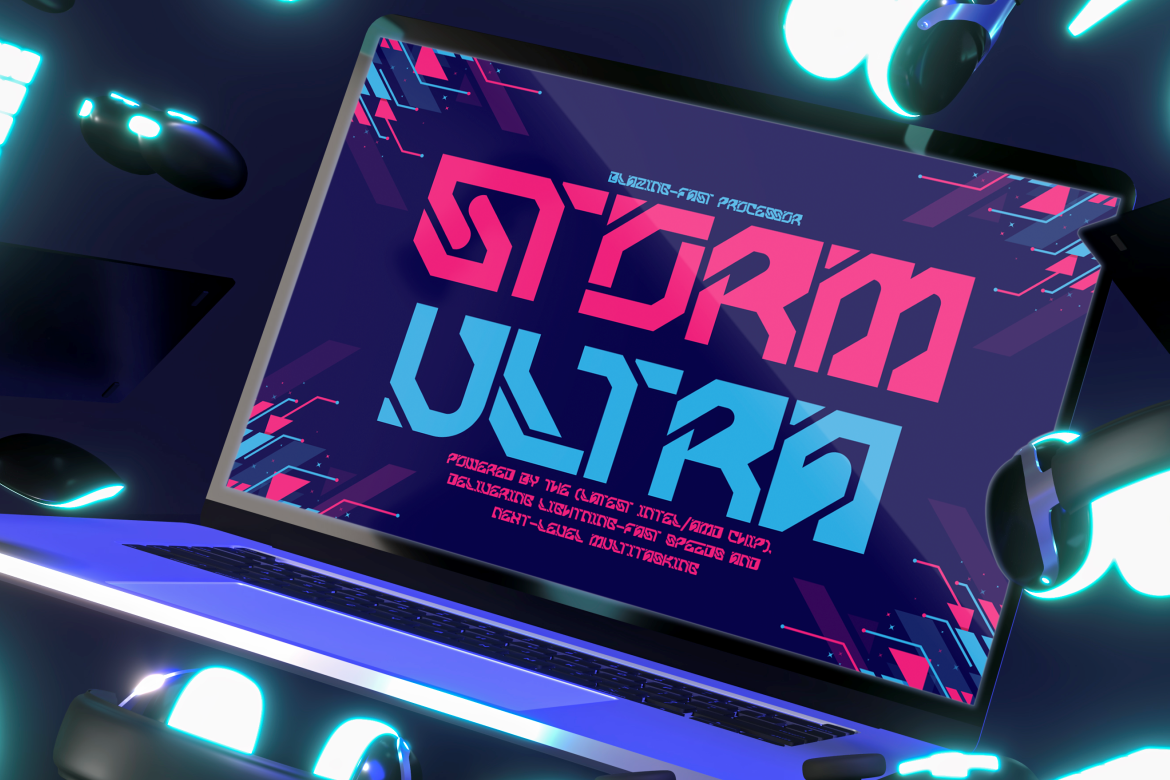
Typography plays an essential role in the gaming industry, whether for creating immersive visuals in-game or for promoting gaming products and content. The best fonts for gaming are often designed with bold, futuristic, and dynamic styles that grab attention and reflect the energetic, high-tech nature of the gaming world. Whether you’re designing game covers, advertisements, websites, or promotional materials, the right font can enhance the overall visual impact and help convey the game’s theme, mood, or genre. From cyberpunk aesthetics to retro pixel designs, the gaming font landscape offers a wide variety of styles that make a statement. This article reviews some of the best fonts for gaming, focusing on those that work for both promotional use and other creative content in the gaming industry.
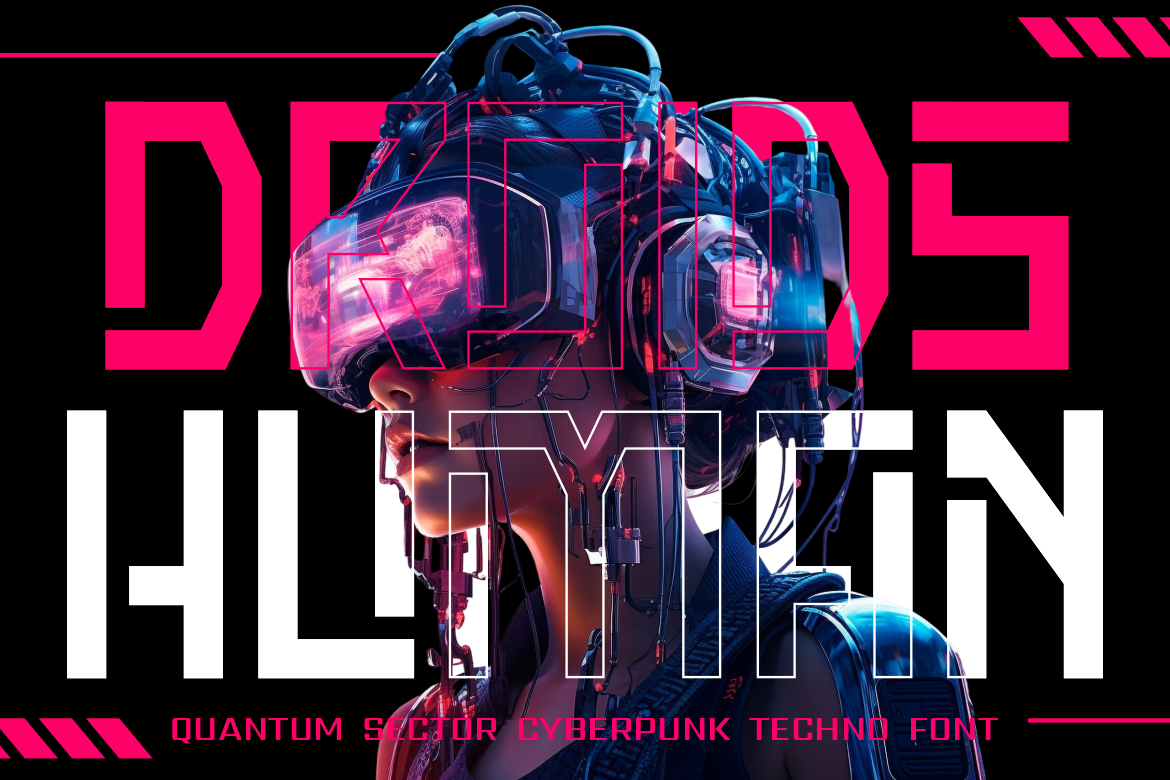
One standout font is Quantum Sector, which brings a cyberpunk and techno style to the table. Perfect for sci-fi, futuristic, or action-packed designs, Quantum Sector adds a bold, sleek look to any project. Its angular, cutting-edge design makes it ideal for tech-heavy content or video game promotions. The futuristic appeal suits a wide variety of applications, including gaming ads or game posters, while its high-tech aesthetic helps create a striking atmosphere. However, due to its complexity, it may not always work well in more minimalist or elegant designs. This font works best when you want to evoke modernity and energy but may not be suitable for projects requiring simplicity or readability.
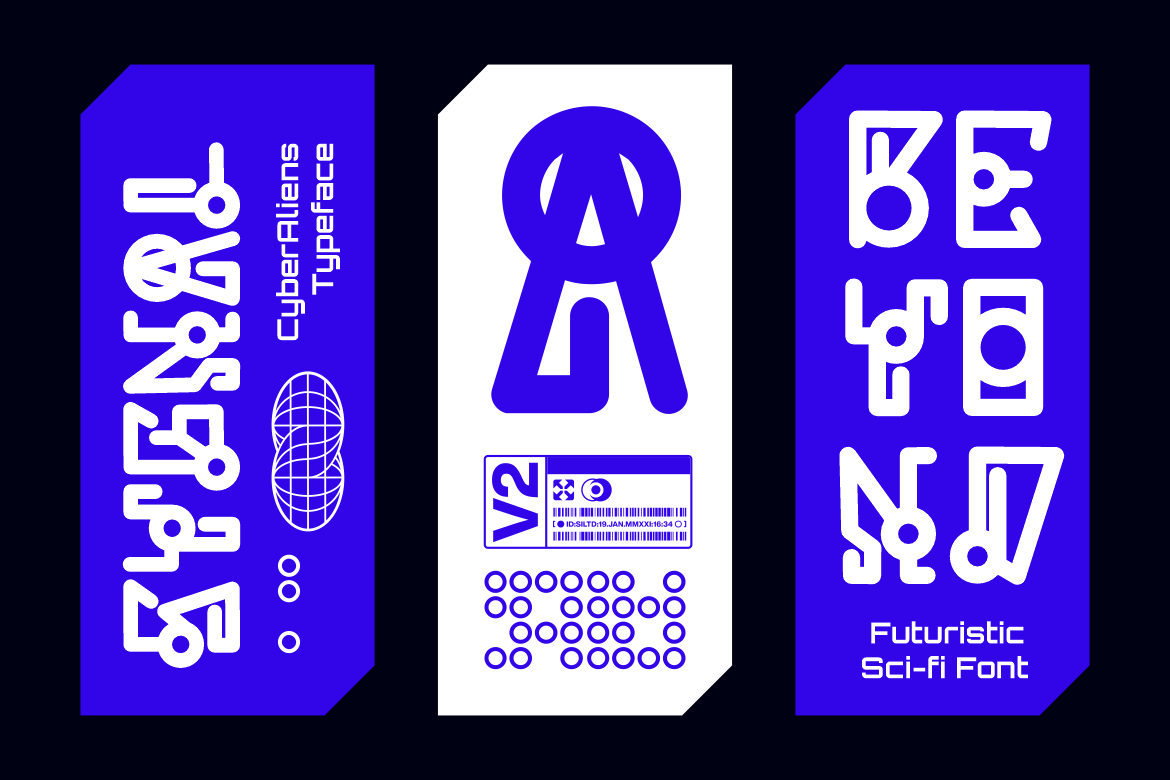
Similarly, Cyber Aliens offers a futuristic sci-fi feel, incorporating alien motifs and intricate designs. The bold, geometric shapes give it an otherworldly charm, making it a great choice for game posters, sci-fi content, and advertisements for futuristic-themed games. The font is especially suited for sci-fi and gaming promotions that demand attention and a sense of mystery. However, its complexity could make it difficult to read in smaller text sizes, limiting its utility for body copy or smaller font applications. For larger, more impactful designs, though, it excels in drawing attention.
Another excellent option is Nexaro Module, a font designed for futuristic and sci-fi content. Its sharp lines and digital aesthetic make it perfect for games set in high-tech or virtual worlds. This font can be used to give game titles, headers, or promotional graphics a sleek, modern touch. The font’s clean and geometric style also makes it versatile enough for web design and branding in the gaming industry. However, like other futuristic fonts, it may not work well in more traditional, retro, or vintage designs. Despite this, its adaptability to modern and futuristic projects makes it a popular choice in the gaming community.
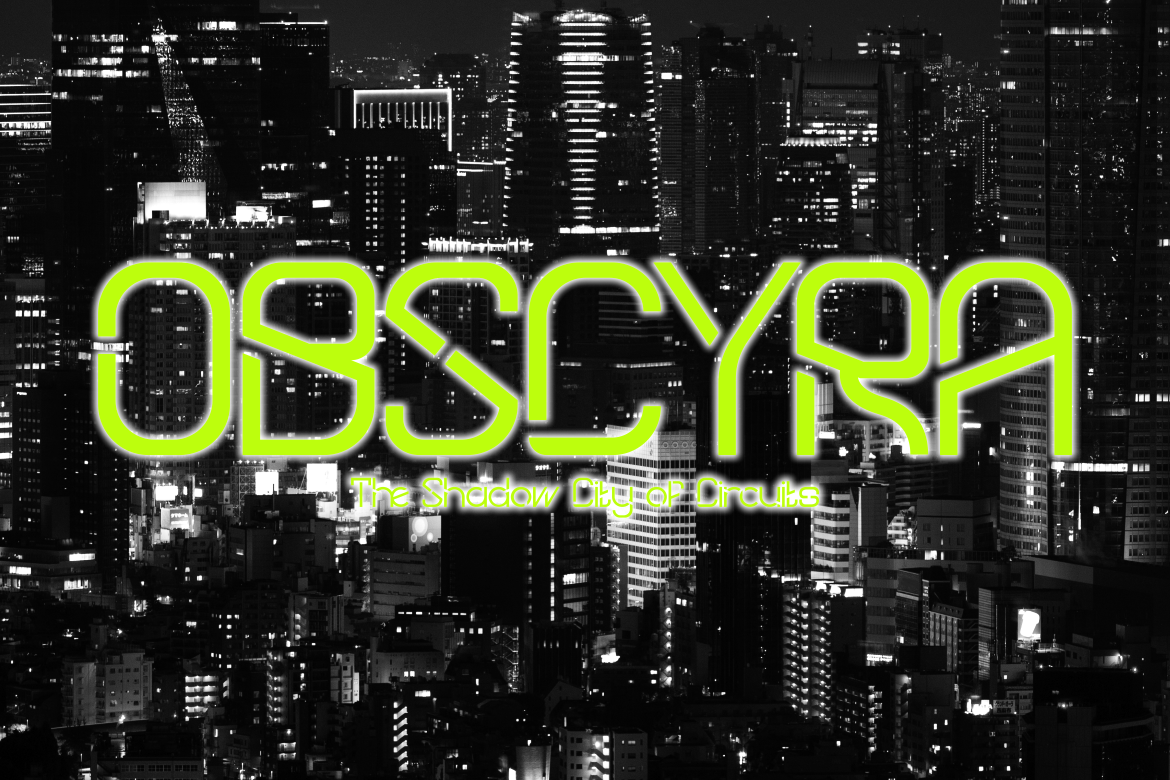
Quantum Futuristic is another futuristic font that stands out due to its dynamic, sleek design. Its sharp angles and unique letterforms give it a strong techno feel, making it ideal for game ads or game covers. This font captures the essence of futurism and innovation, perfectly matching the aesthetic needs of games involving space, technology, or sci-fi adventures. However, because it’s quite bold and intricate, it’s not always suitable for large body text or for projects requiring easy readability. It works best for titles or headlines where you want to make a strong statement.
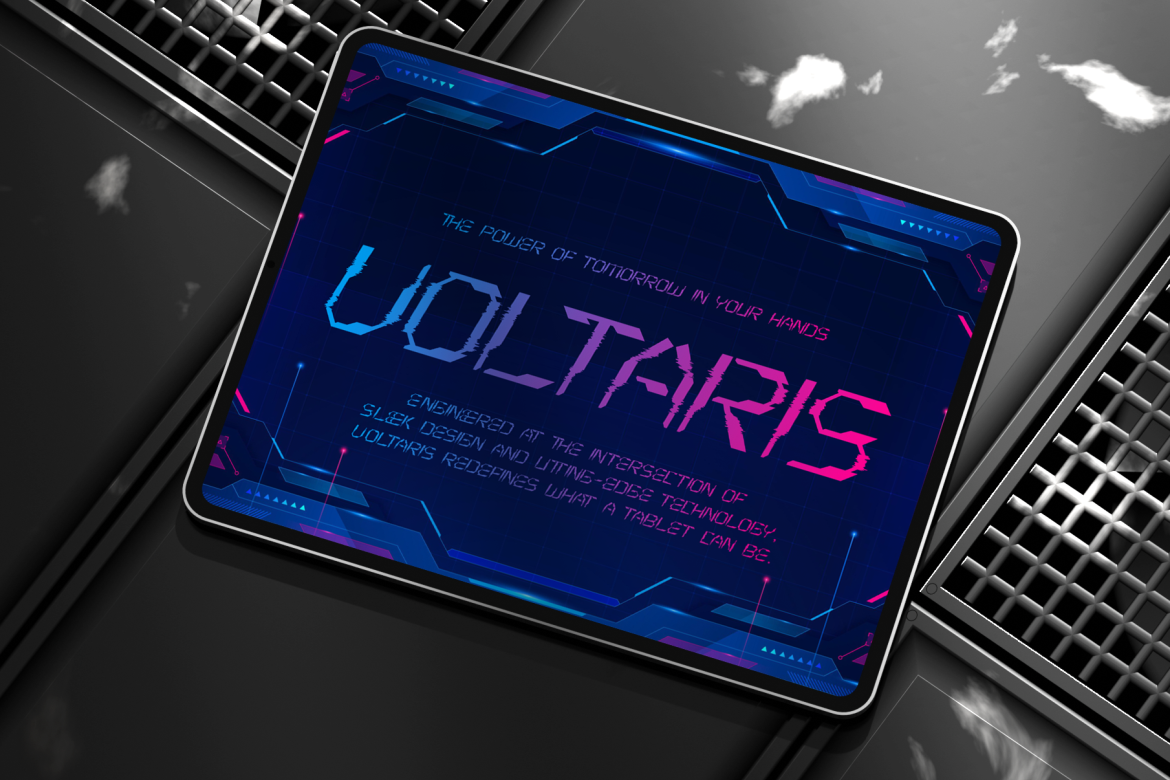
For a more techno-inspired look, Pulse Display brings a modern techno style to any design. This font is perfect for dynamic game promotions or tech-heavy content. The clean lines combined with futuristic shapes create a sleek yet strong appearance that conveys energy and action. However, similar to the other futuristic fonts, it’s not always ideal for long paragraphs or smaller text because of its boldness. It works best for designs where the message needs to be emphasized in short bursts, such as headlines or game posters.
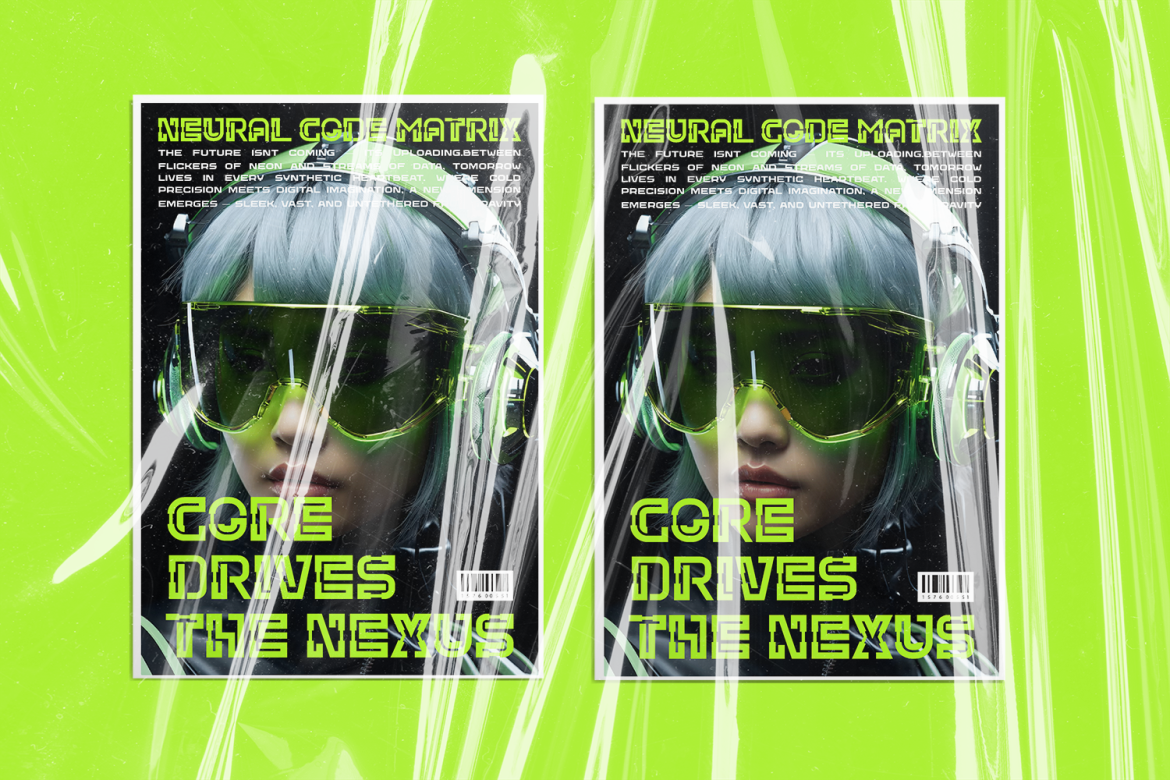
Another font in this category that shines in techno and futuristic designs is Zeta Drive. With its sharp and dynamic aesthetic, this font is great for cyberpunk, sci-fi, and action-oriented games. Zeta Drive can create bold impressions for video game branding, posters, and advertising, making it perfect for any design requiring a high-energy and modern feel. While it’s excellent for headlines and large text, its complex structure might make it less effective for smaller text sizes or longer passages.
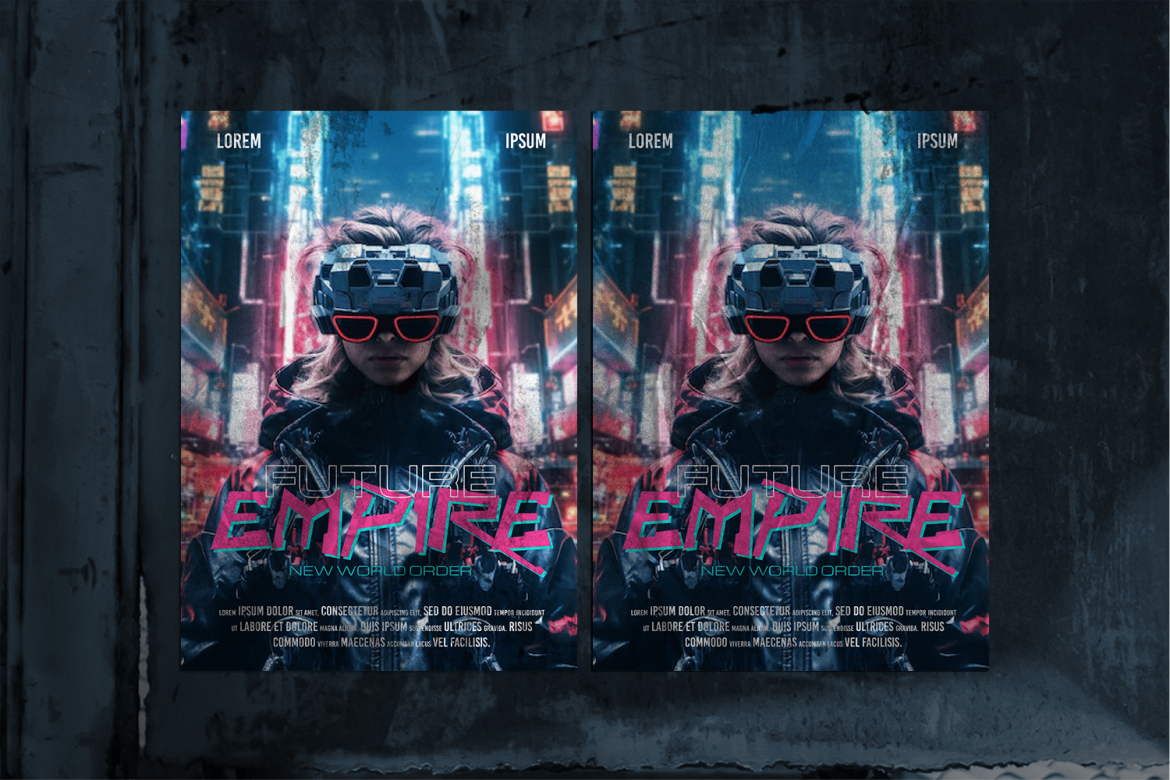
Moving on to something with a more cyberpunk feel, Cyber Horizon is a futuristic font that exudes high-tech charm with its sharp edges and geometric precision. This font is ideal for cyberpunk-themed games, posters, and advertisements that need to make a bold, futuristic statement. Its versatility allows it to be used for titles, headers, and even game logos. However, it may not be as suitable for block text or body content due to its complexity. Still, if you want to evoke a cutting-edge, cyberpunk atmosphere, Cyber Horizon is an excellent choice.
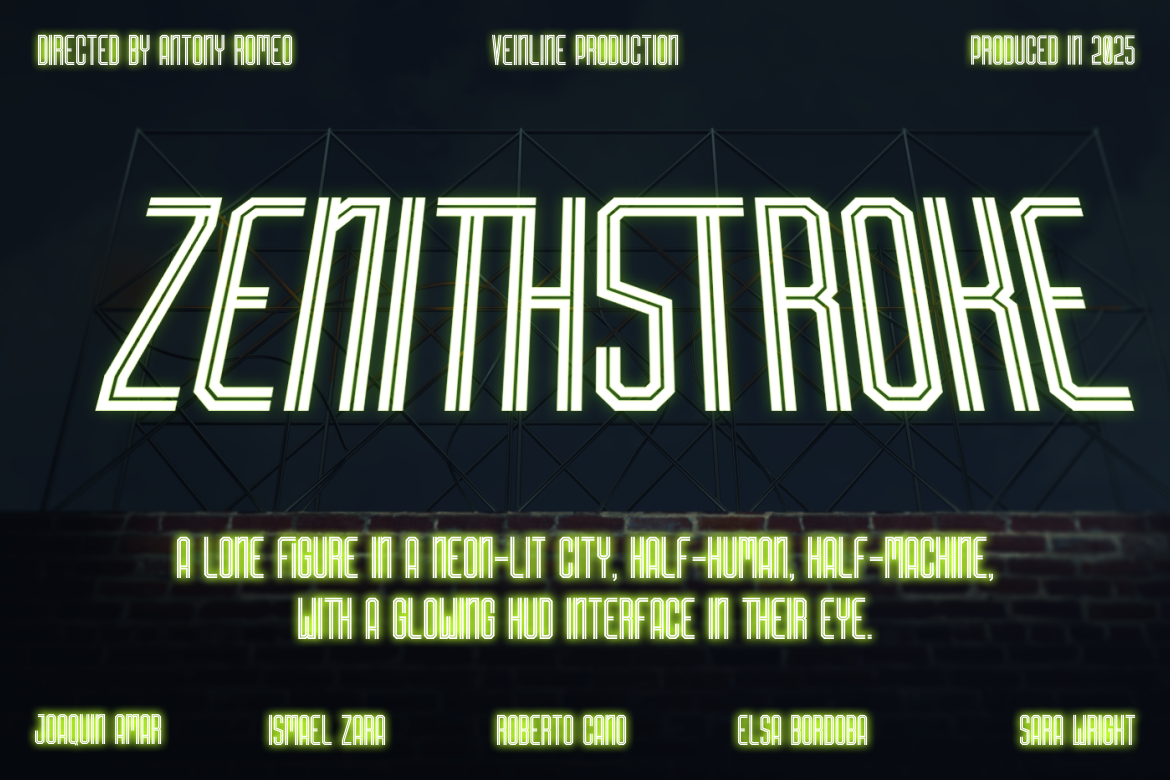
If you’re looking for a futuristic display font with a bold, sleek appearance, Zenith Stroke is perfect for capturing the essence of modern, tech-inspired content. This font is ideal for game logos, titles, and other promotional material that requires a high-impact look. It works well for any project that needs to look modern, tech-savvy, and innovative. However, the boldness of Zenith Stroke may be overpowering in smaller text sizes, so it’s best used for larger applications like banners or headlines.
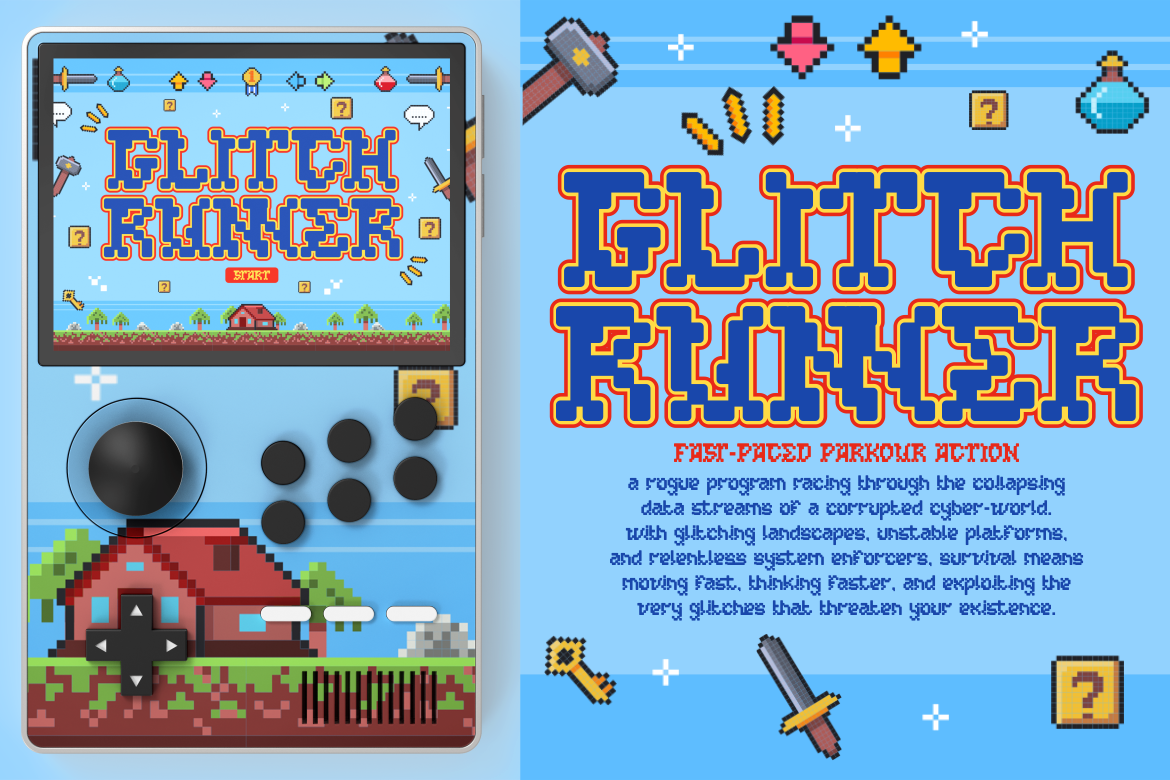
For retro-inspired gaming content, Pixel Quest offers a pixelated look that brings back the nostalgic vibes of classic video games. This pixel font is perfect for retro game promotions, classic arcade game titles, or any project with a vintage gaming aesthetic. While it’s fantastic for projects that want to tap into the nostalgia of older gaming systems, its pixelated nature might not be suitable for more modern or sleek designs. Nonetheless, it’s an excellent choice for retro-style promotions and arcade game branding.